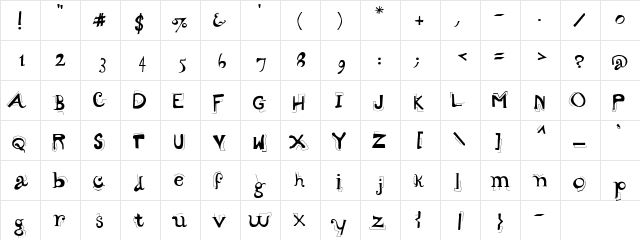
Wynand Medium Font Preview
Wynand Medium
Wynand Medium Font Details
Design Context for Wynand Typeface
Wynand is a composed and adaptable typeface that performs quietly and consistently across a wide range of design contexts.